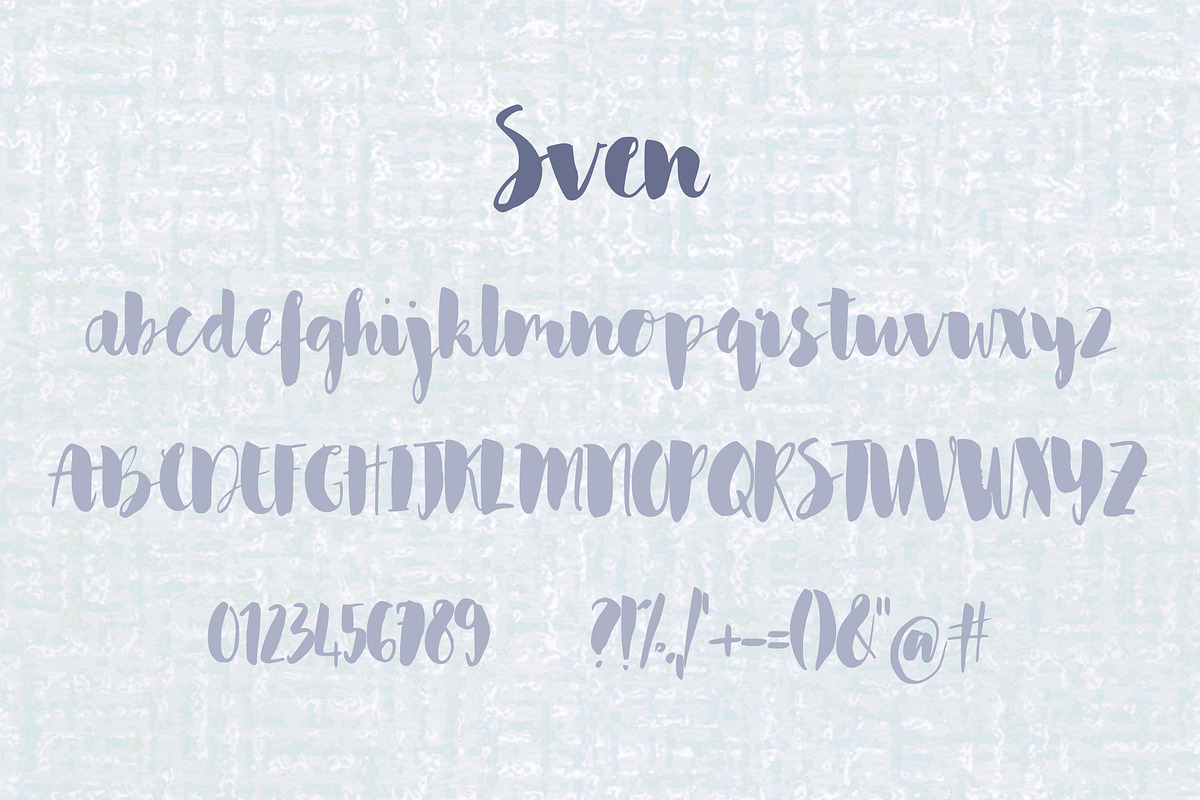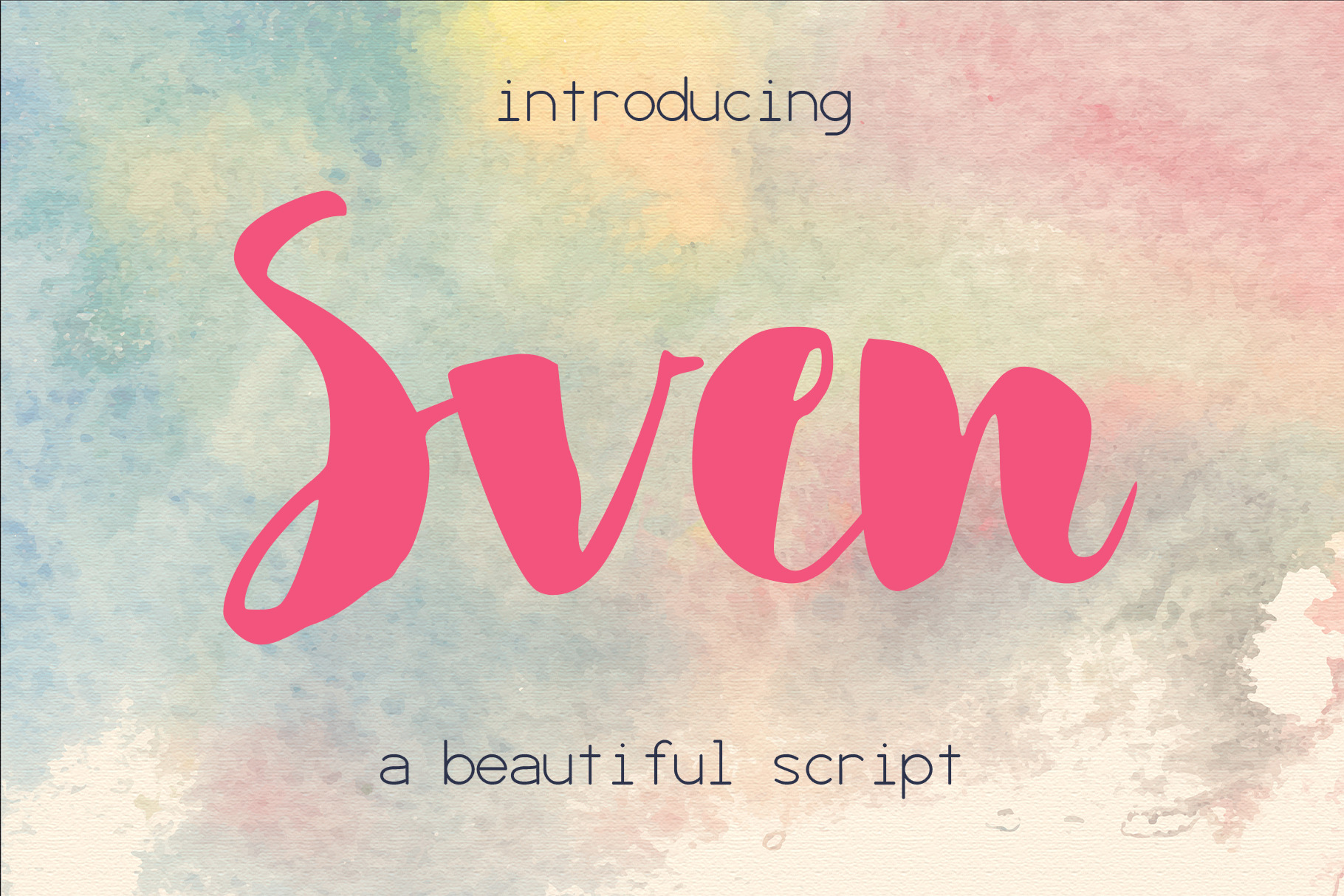
Sven Font
Introducing Sven, a beautiful cursive script.💗 Perfect for any graphic and logo designs, wedding and birthday invitations.
Sven font contains uppercase & lowercase characters, numbers and punctuations.